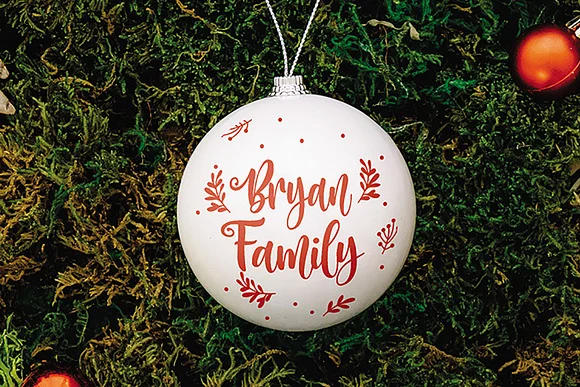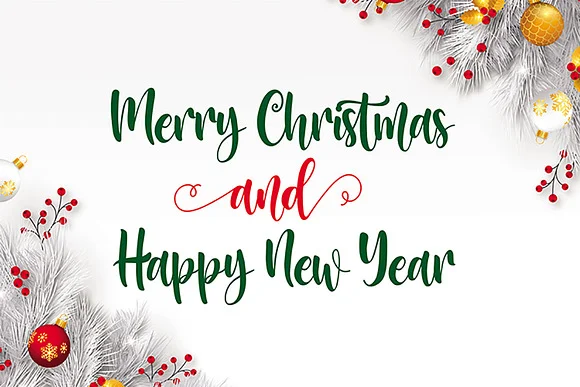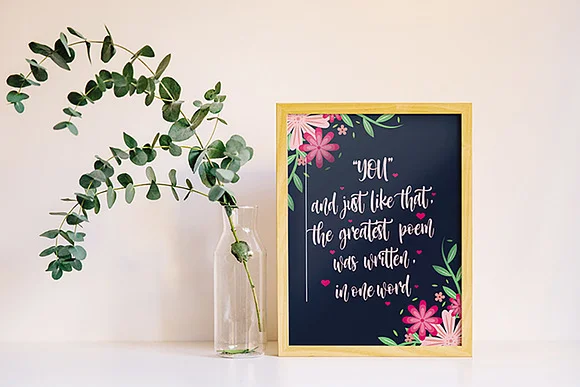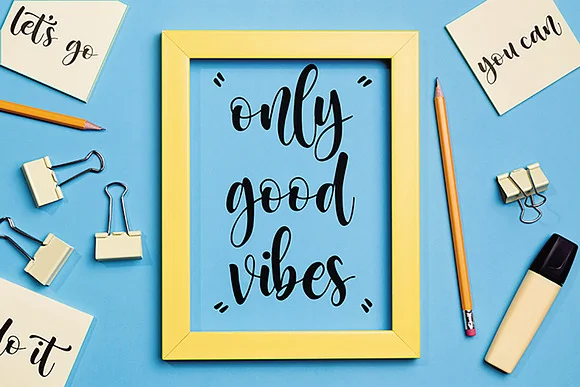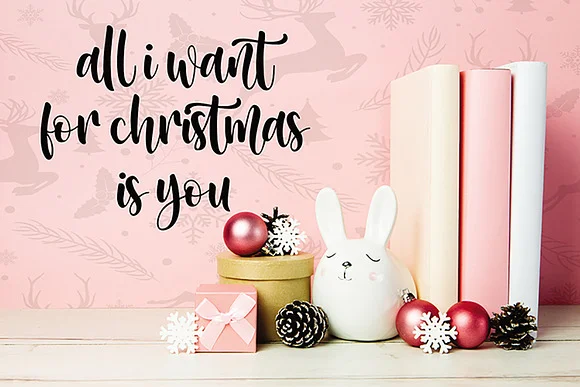
Melody Christmas Font
This harmonious font is perfect for Christmas music concerts, holiday choir programs, seasonal music festival posters, Christmas carol sheets, festive music album covers, holiday radio station branding, Christmas musical theater productions, seasonal symphony announcements, holiday karaoke events, and musical Christmas greeting cards.
Melody Christmas Font is exciting because it captures the lyrical beauty and rhythmic flow of beloved Christmas carols through its musically inspired letterforms that seem to dance and sing across the page. The font features gracefully curved characters with flowing lines that mirror the natural rise and fall of Christmas melodies, incorporating subtle musical elements like note-inspired curves and staff-line details. Each letter showcases harmonious proportions that reflect musical timing and rhythm, creating typography that feels both melodic and festive. The design evokes the joyful sound of Christmas songs filling the air, from gentle lullabies to triumphant hymns, making it perfect for projects that celebrate the musical traditions of the holiday season.
The Melody Christmas Font family includes musically themed variations: Regular, Bold, Light, Harmony, and Crescendo versions. The collection features special musical elements including note accents, staff line details, treble clef flourishes, and carol-inspired ornaments. Additional components include musical borders, symphony frames, note decorations, and melodic ornamental designs that enhance the font's Christmas music appeal and create cohesive seasonal concert themes.
Music directors and event designers will find Melody Christmas Font to be an invaluable tool for creating engaging musical communications that celebrate the rich tradition of Christmas music. This thoughtfully crafted font transforms ordinary concert announcements and musical programs into captivating designs that resonate with audiences who cherish the sounds and songs of Christmas.
The typeface includes comprehensive character support with musical symbols and international language compatibility for global Christmas music celebrations. The font's rhythmic design maintains excellent readability while conveying the joy and harmony associated with holiday music across all applications.
Perfect for music venues, choirs, orchestras, music schools, and Christmas entertainment events, this font delivers melodic visual impact that communicates the joy, harmony, and celebratory spirit of Christmas music through typography that sings with festive musical energy.